Great graphic design is powered by great font selection. But picking great fonts is a challenge most people. Luckily, Canva has made adding great fonts to your designs much easier. In this tutorial, our team of design experts will cover the best free fonts in Canva.
What Are Free Canva Fonts?
Free fonts are the fonts that come pre-loaded on the free version of Canva. To see which fonts are free and which Canva fonts are only accessible to paid Canva users, open a Canva design, add some text, and click on the font drop down menu, which will open a larger font menu in the left-hand side bar:
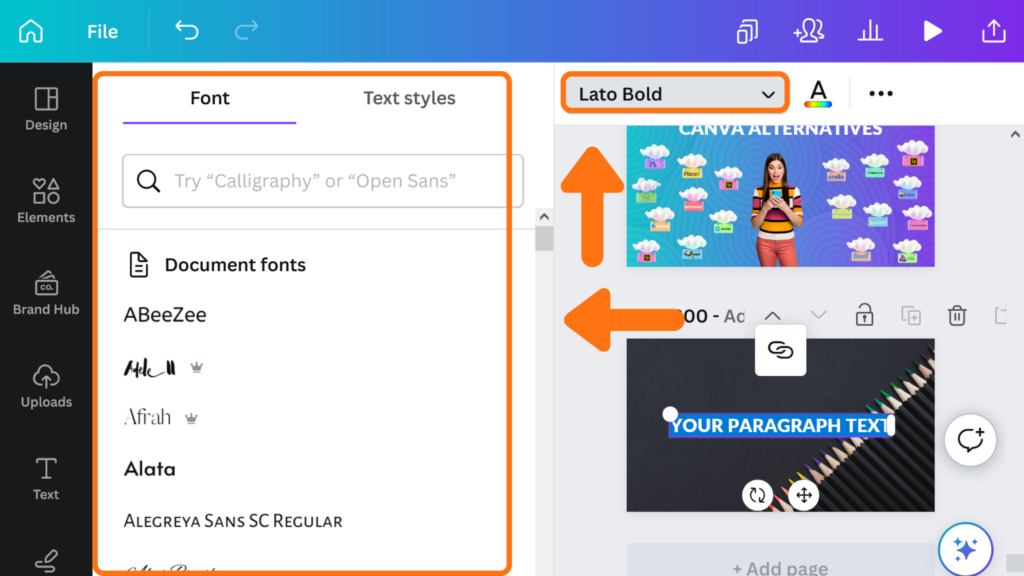
You can now scroll through the entire list of Canva fonts.
So how do you know which fonts specifically are for free users?
Fonts without a crown icon (♛) to the right of a font, are free Canva fonts. Fonts for paid Canva users are denoted with a crown icon beside them.
For example, as illustrated in the screenshot below, Alta is a free Canva font (there is no premium icon beside the font text). In contrast, Afrah is a paid Canva font (with the crown icon (♛) next to the name of the font).
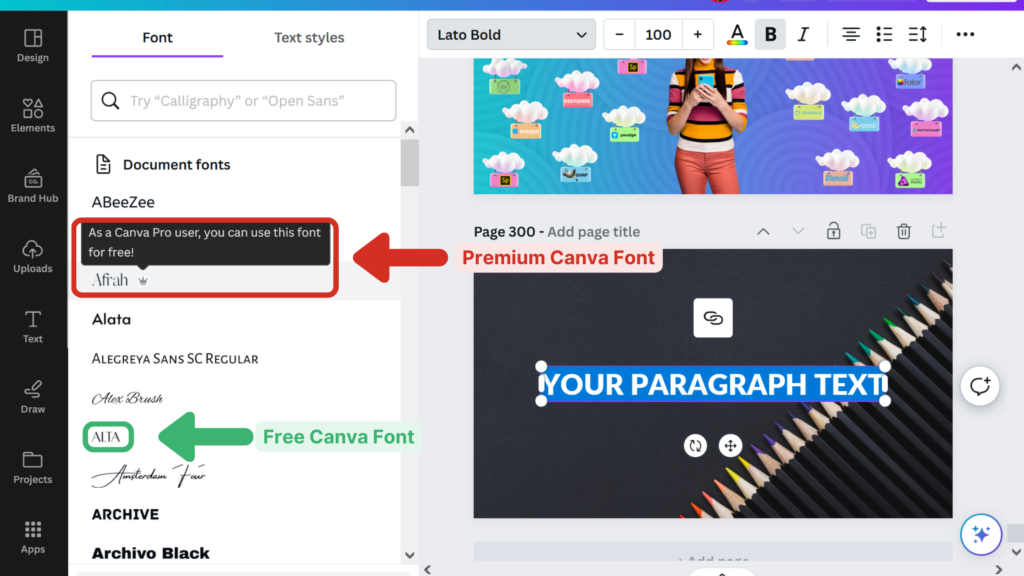
Best Free Fonts in Canva
So, now that you know how to differentiate between free and paid Canva fonts, what are some of the best free fonts available in Canva? Below is a list of my favorite fonts that come with the free version of Canva:
1. 29LT Makina
29LT Makina is a distinctive, mechanical-inspired display font that features a combination of industrial and geometric design elements. Its unique and bold appearance makes it an excellent choice for headlines, posters, or branding projects that require a strong visual impact.
2. High Tide Geometric
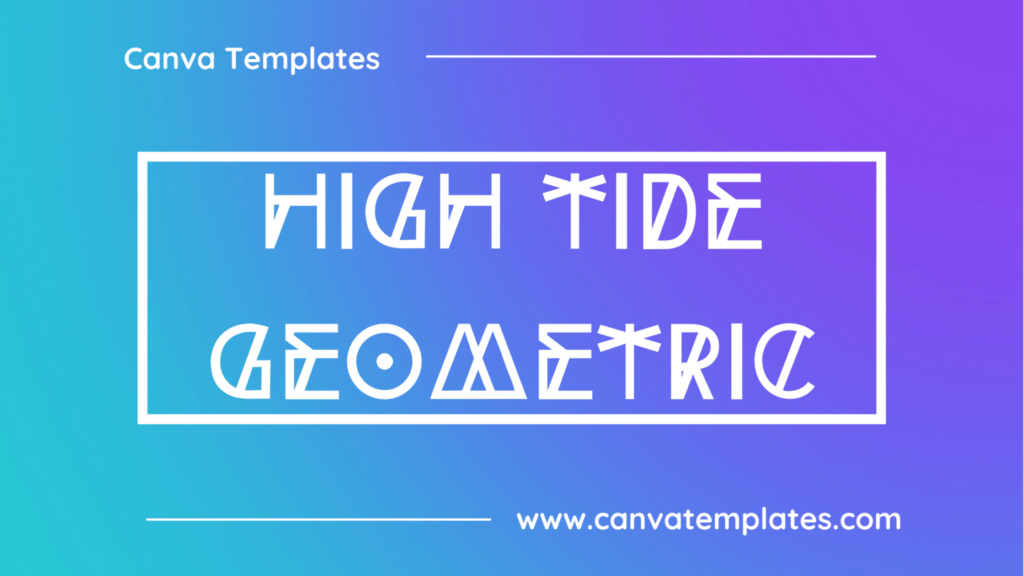
High Tide Geometric is a modern, geometric sans-serif font with clean lines and sharp angles. Its contemporary design makes it well-suited for technology, design, or architectural projects, such as logos, websites, or marketing materials.
3. Pinyon Script
Pinyon Script is a romantic round-hand script-style font. It also sports swashes which are confident and showy somehow giving the type a feeling suggestive of the American west. Perhaps this is why, despite refinement and aristocratic style; Pinyon Script manages to feel so friendly. Pinyon Script uses a high stroke contrast and is very slanted making it most suitable for use at larger sizes.
4. Tan Twinkle
Tan Twinkle is a delicate, handwritten font with a whimsical, fairy tale feel, resembling twinkling stars.
5. Reborn
Reborn is a bold and expressive display font with a distressed, hand-drawn style. It features uneven, jagged lines and a grungy, textured appearance that is perfect for designs with a rebellious, edgy feel.
6. Neoneon
Neoneon is a decorative typeface designed to mimic the look of neon lights. It features a bold and heavy appearance with a slightly rounded and condensed design. The letters are made up of individual strokes that appear to be made from neon tubing, complete with dark borders and glowing interior colors. The font is often used to create a retro or nostalgic atmosphere, particularly for signage and branding applications.
7. Pacifico
Pacifico is a cursive font that is inspired by the handwriting of the 1950s and 1960s. It features fluid, flowing lines and has a retro, nostalgic feel. It is often used in designs that evoke a sense of vintage or retro style.
8. Metropolis
Metropolis is a sans-serif font that was designed in 1927 by German typeface designer and teacher, Ludwig Goller. It was heavily influenced by the Art Deco movement of the time, which is reflected in its geometric shapes and clean lines. The font gained renewed popularity in the 21st century and is often used in modern designs that aim to evoke the glamour and sophistication of the 1920s and 30s.
9. Yellowtail
Yellowtail is an old-school-flavored flat brush script typeface of medium weight. Its mix of connecting and non-connecting letterforms lends to its unique look and legibility. Yellowtail nods to classic 1930s typestyles like Gillies Gothic & Kaufmann, yet have the loose visual cadence of sign painter scripts
10. Code
Code is a monospace sans-serif font that is characterized by its clean and modern appearance. It has a simple and minimalist design, with even letterforms and a balanced overall look. Code is well-suited for designs that require a sense of simplicity and clarity, such as coding or programming environments, technical manuals, or digital publications. Its unique and distinctive appearance can help to create a strong visual identity and enhance the user experience, especially in coding-related designs where each character occupies the same amount of horizontal space.